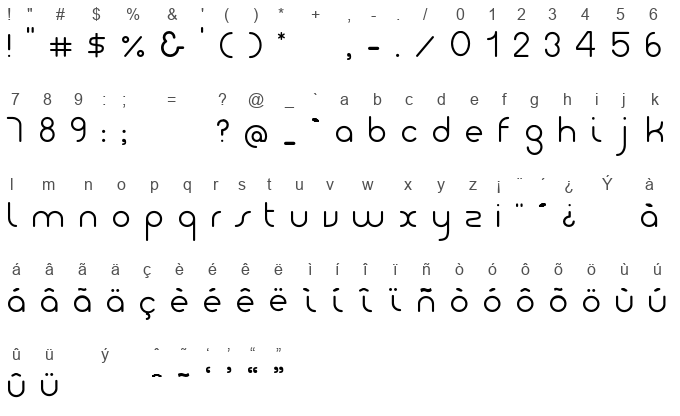
Imagine if a font decided to put on its best suit, strut down the design runway, and throw a party where every letter is a VIP guest with its own quirky dance move. That's Giro for you—a font that's not just a collection of characters, but a lively gathering designed by the talented Marcelo Magalhães.
Giro, at its heart, is like that friend who's effortlessly cool without even trying. Crafted with a unique blend of geometric precision and playful curves, it's the kind of font that can make a simple grocery list look like an invitation to an exclusive event. Magalhães has managed to inject a sense of dynamism and motion into each letter, making the text come alive as if it's ready to leap off the page.
The font's versatility is something to behold. It can dress up and command authority on a sleek, modern logo, or let its hair down and add a splash of fun to casual party invites. Giro doesn't just communicate words; it adds personality, turning mundane text into a visual feast. With a range of weights and styles, it's like having a wardrobe full of characters at your disposal, each ready to match the mood of your message.
Beyond its stylish appearance, Giro embodies a certain zeitgeist of design—a merging of form and function where each character is meticulously crafted not just to stand out but to work harmoniously together. It's a testament to Magalhães's dedication to not just creating a font, but curating an experience that enhances the visual narrative of any project it graces.
So, next time you're looking to add a dash of flair to your designs, let Giro take the lead. It's more than just a font; it's a statement—a celebration of creativity and a reminder that design, at its best, is an adventure of expression.
Giro